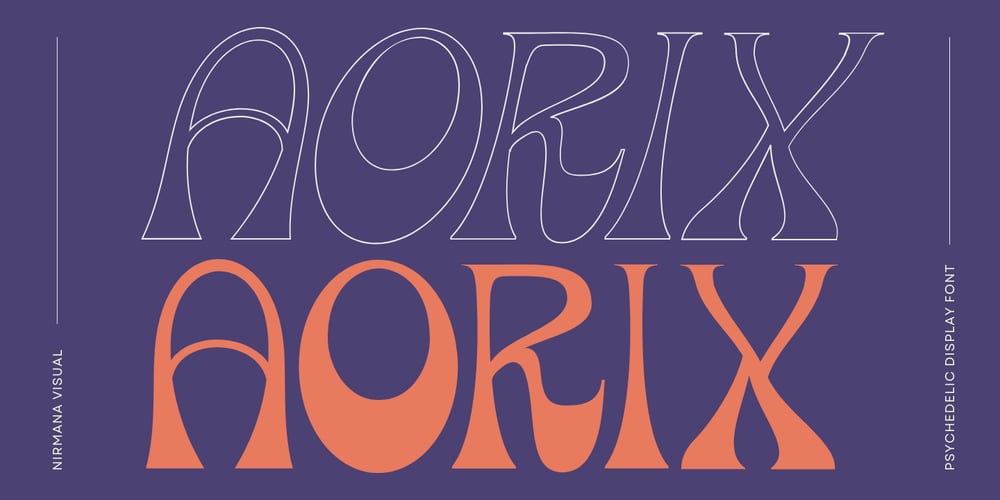
Aorix Psychedelic Font Family was designed by Sigit Dwipa and published by Nirmana Visual. Aorix Psychedelic contains 2 styles and family package options. A psychedelic font theme captures the essence of the 1960s counterculture movement, characterized by vibrant colors, intricate patterns, and mind-bending designs.The letters may appear to dance or morph, creating a sense of movement and fluidity. Psychedelic fonts evoke a sense of freedom, experimentation, and nonconformity, mirroring the spirit of the era they represent.